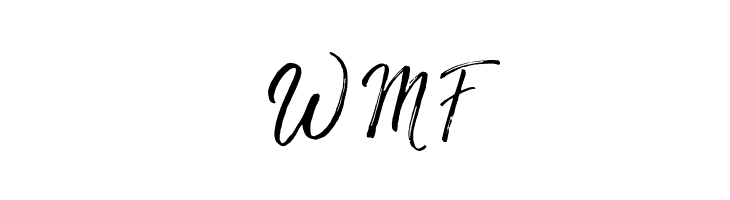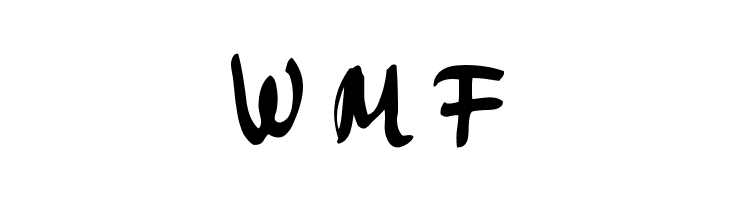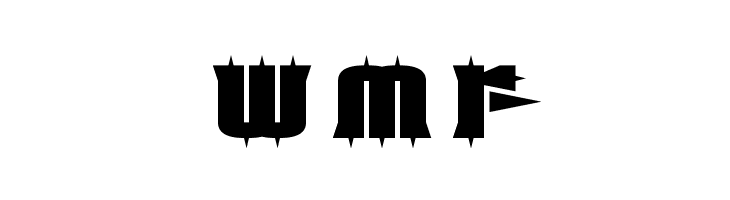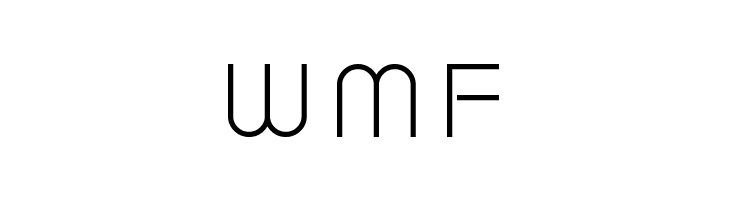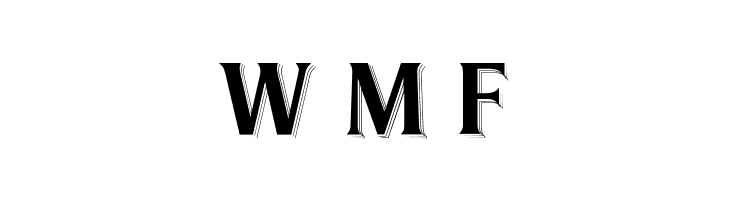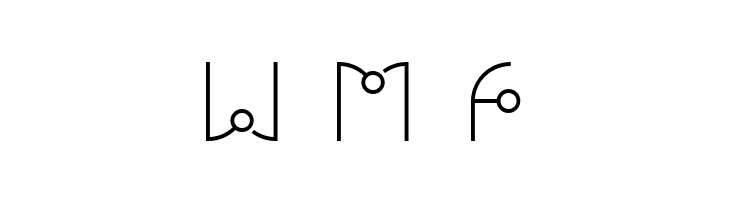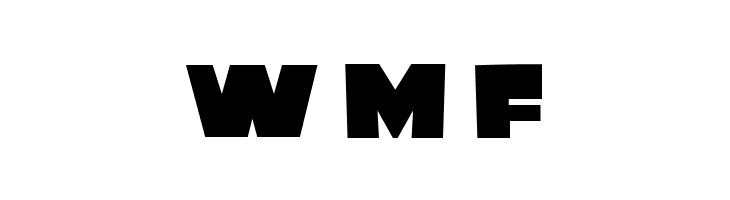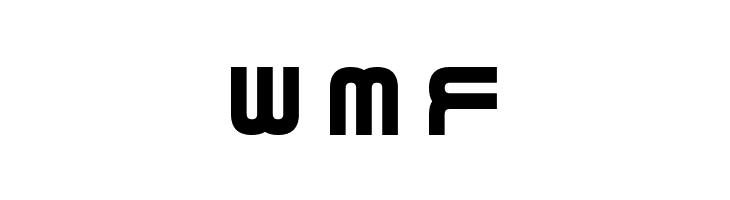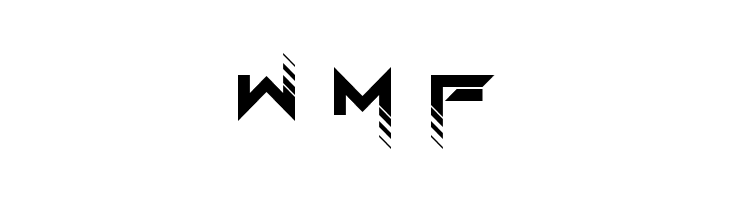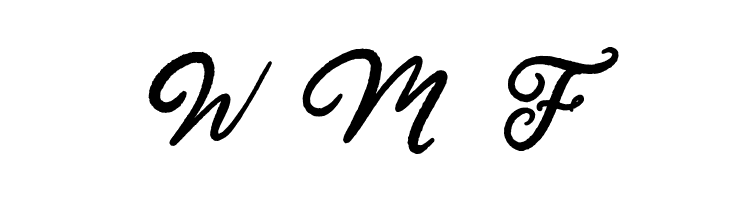
A bold, playful script font with a hand-drawn, brush-like style.
A bold, geometric font with sharp angles and a strong presence.
A bold, spiky, and highly decorative font with sharp, angular edges.
A bold, blackletter-inspired font with a modern gothic style.
A modern, geometric font with clean lines and a minimalist style.
A bold, high-contrast serif font with a classic yet modern style and shadow effects.
A bold, decorative font with a playful, 3D style.
A bold, playful handwritten font with smooth curves and rounded edges.
A classic serif font with tall, narrow characters and pronounced serifs.
A bold, rounded font with a playful and dynamic style.
A futuristic, geometric font with circular and linear elements.
A bold, heavy font with a strong, impactful presence.
An elegant, flowing script font with ornate uppercase and smooth lowercase letters.
A dynamic and elegant script font with flowing, cursive letterforms.
A bold, expressive script font with dynamic curves and interconnected letters.
A bold, outlined geometric font with a modern and structured appearance.
A bold, distressed font with a vintage, rugged appearance.
A bold, italicized font with a double-outline effect, perfect for modern and dynamic designs.
A playful, hand-drawn font with an energetic and whimsical style.
A bold, textured, and playful hand-drawn font with a unique and informal style.
A bold, playful script font with thick, flowing strokes and rounded edges.
A bold, playful font with rounded, bubble-like characters and a whimsical style.
A pixelated, blocky font with a retro digital aesthetic.
A bold, geometric font with a blocky, digital style.
A bold, high-contrast serif font with a Western vintage style.
A modern, italicized font with a sleek, angular design and a futuristic aesthetic.
A modern, geometric outline font with a futuristic and technical style.
A modern, semi-italic font with geometric and angular characters.